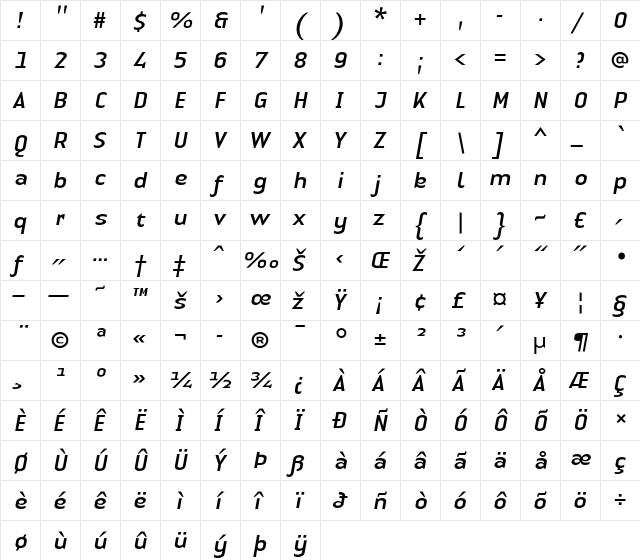
LTAuthenticSans Regular Font Preview
LTAuthenticSans Regular
LTAuthenticSans Regular Font Details
Design Context for LTAuthenticSans Typeface
LTAuthenticSans is a composed and adaptable typeface that performs quietly and consistently across a wide range of design contexts.